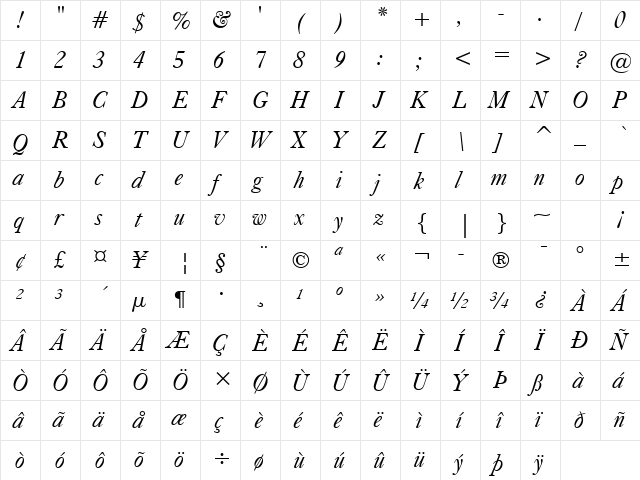
Caslon540 BT Italic
Design Context for Caslon540 BT Typeface
Caslon540 BT offers clean, dependable letterforms without strong stylistic allegiance, making it a practical choice for designers who need flexibility. The dynamic lean of this cut emphasises speed and emphasis in any layout.
Pro Tip: Try Caslon540 BT for annotation and caption copy alongside an upright companion — the contrast in angle creates a dynamic but ordered typographic system.